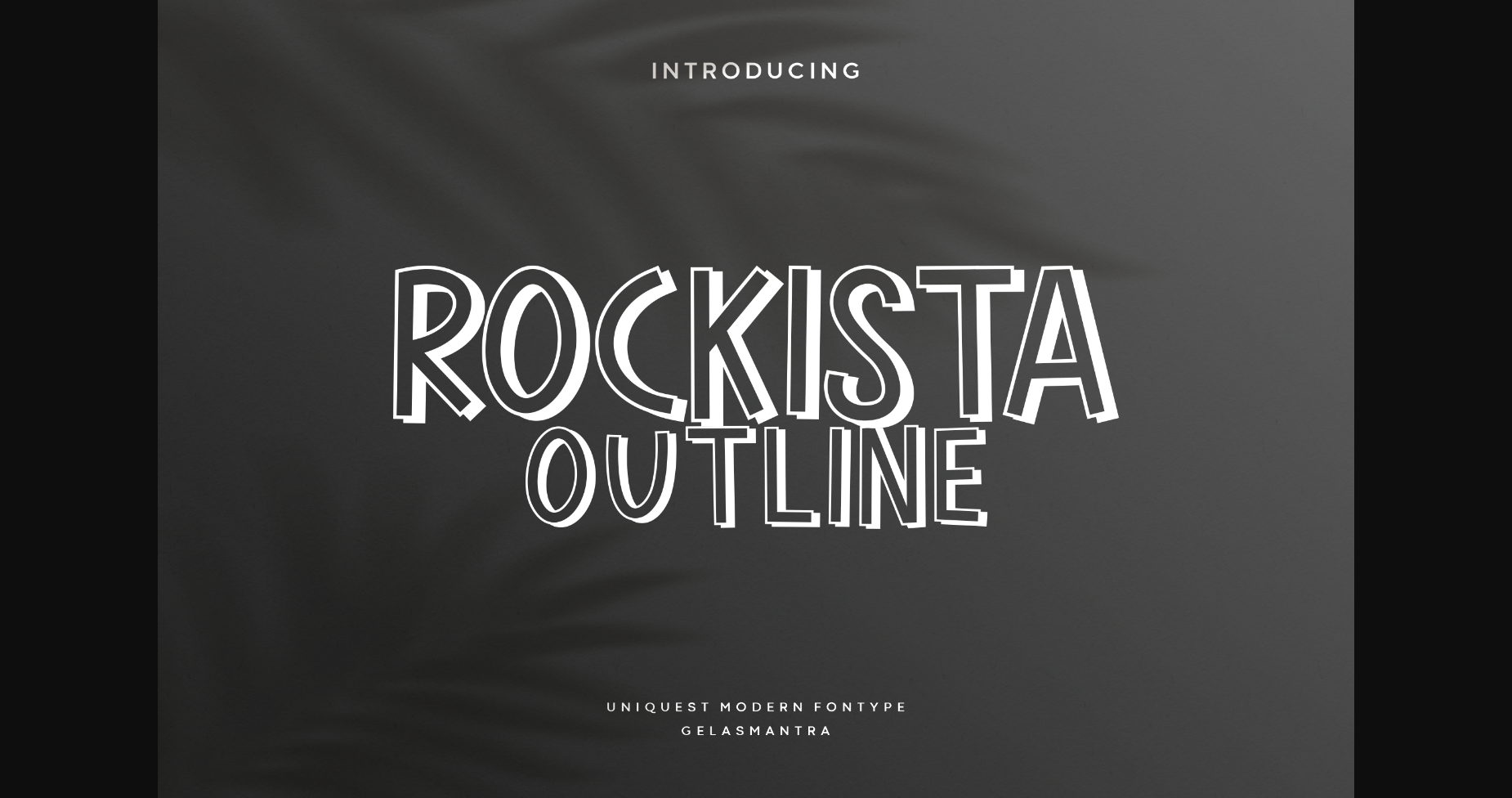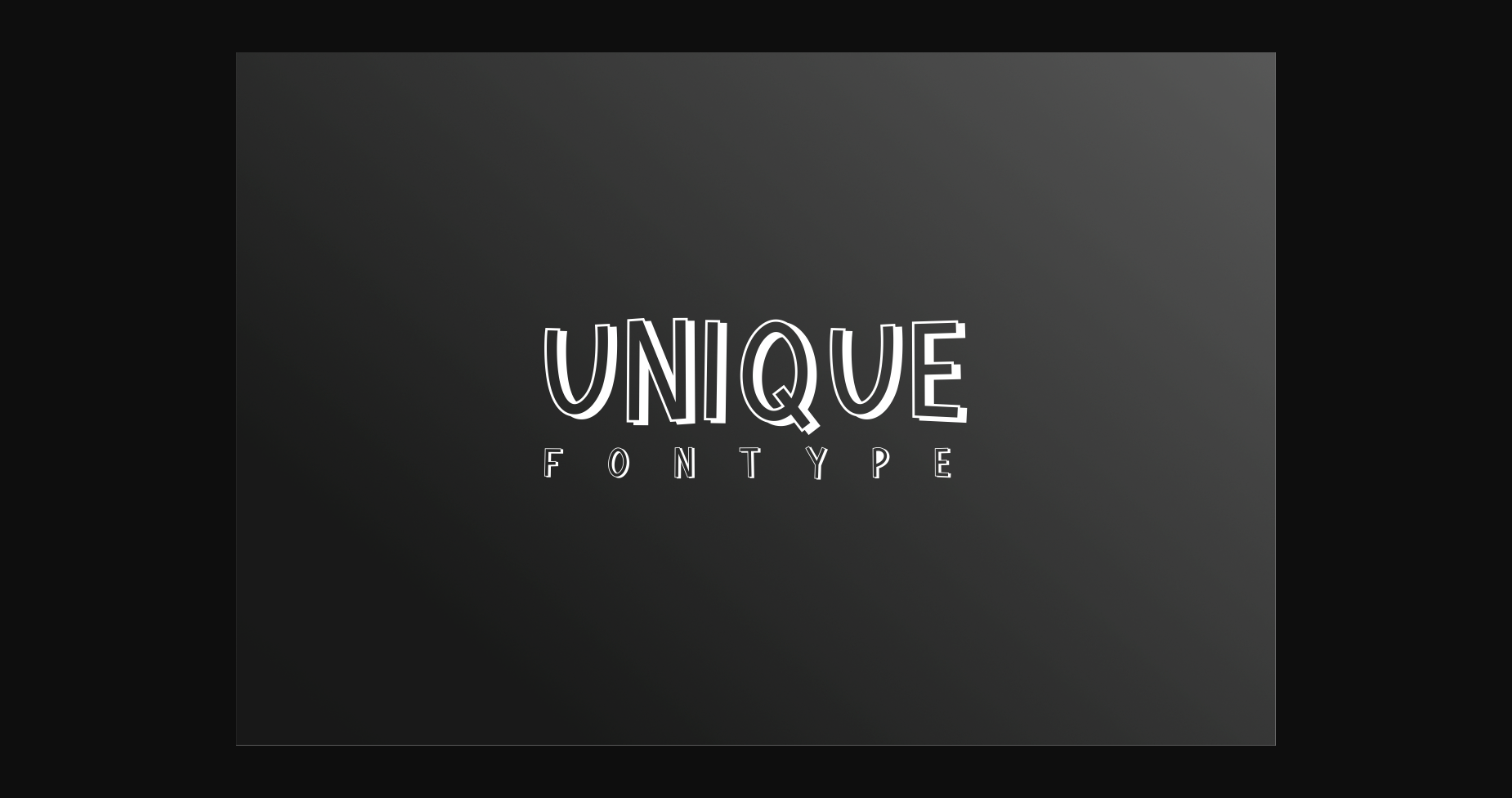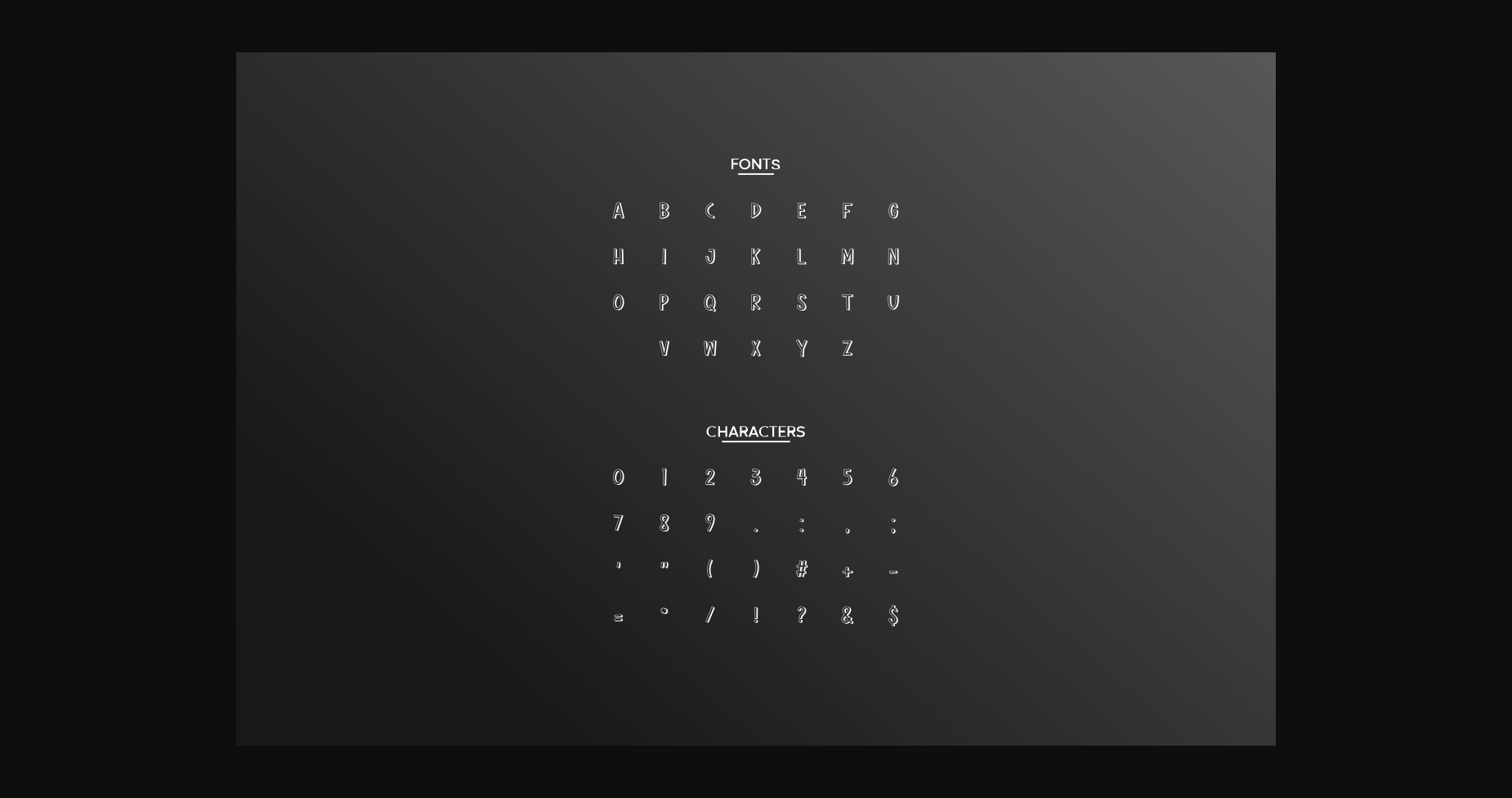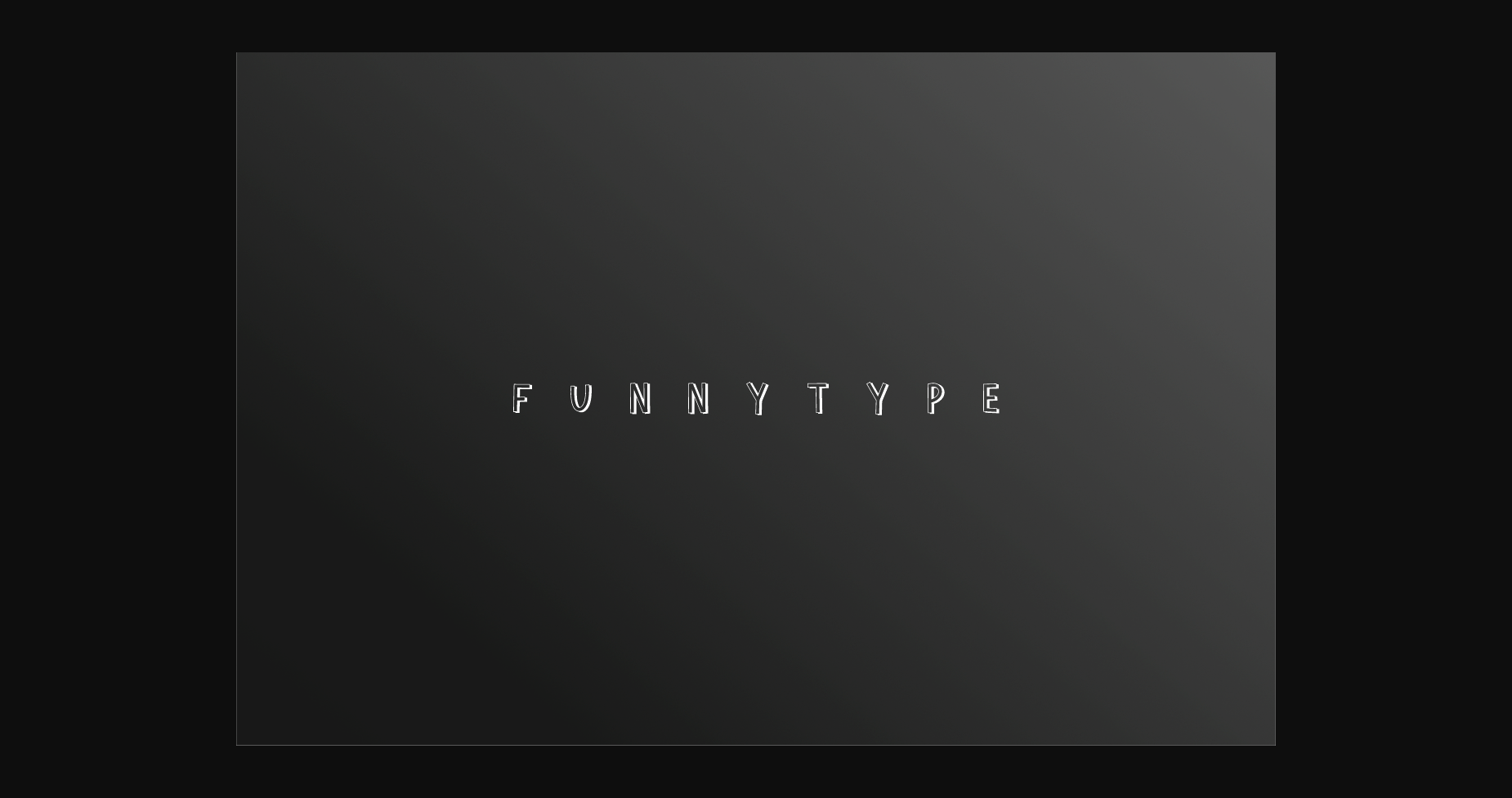
About Rockista Outline Font
Rockista Outline is an all-caps sans serif font perfect for something related to food, children, kids illustrations, book titles, website titles, writing on video, or anything that needs a modern appearance.